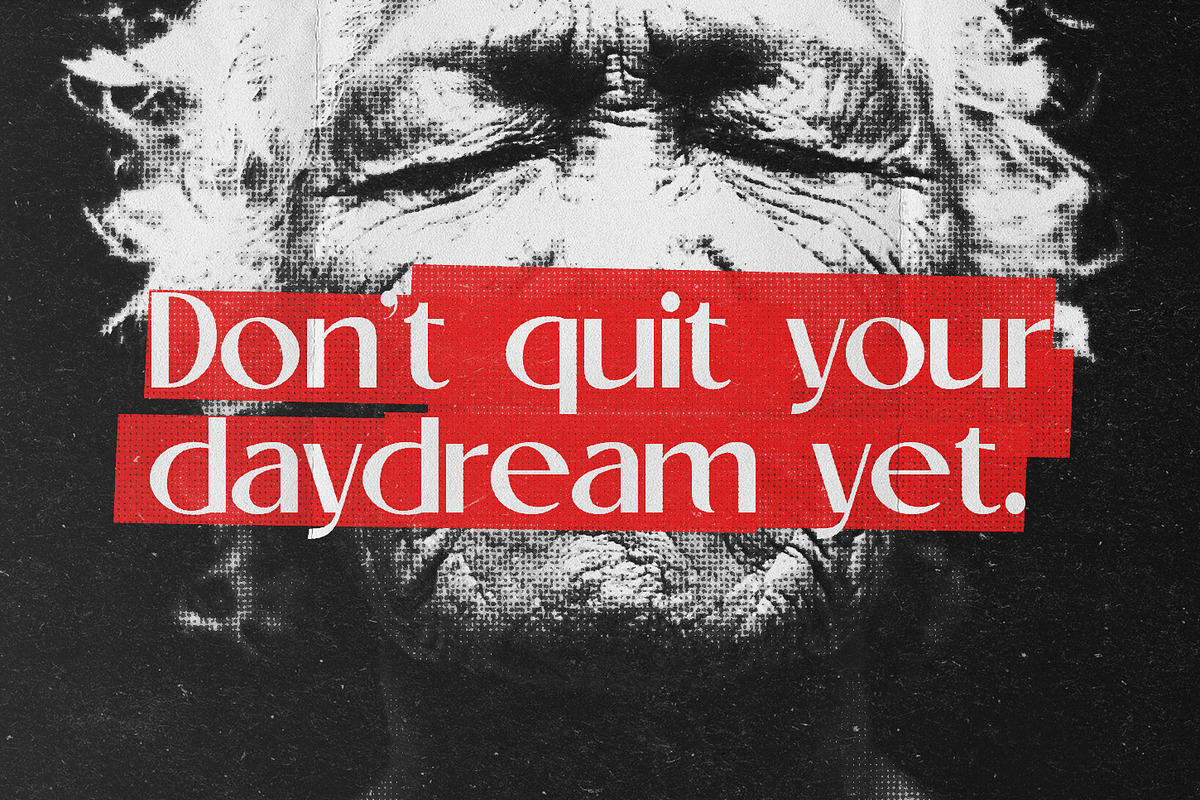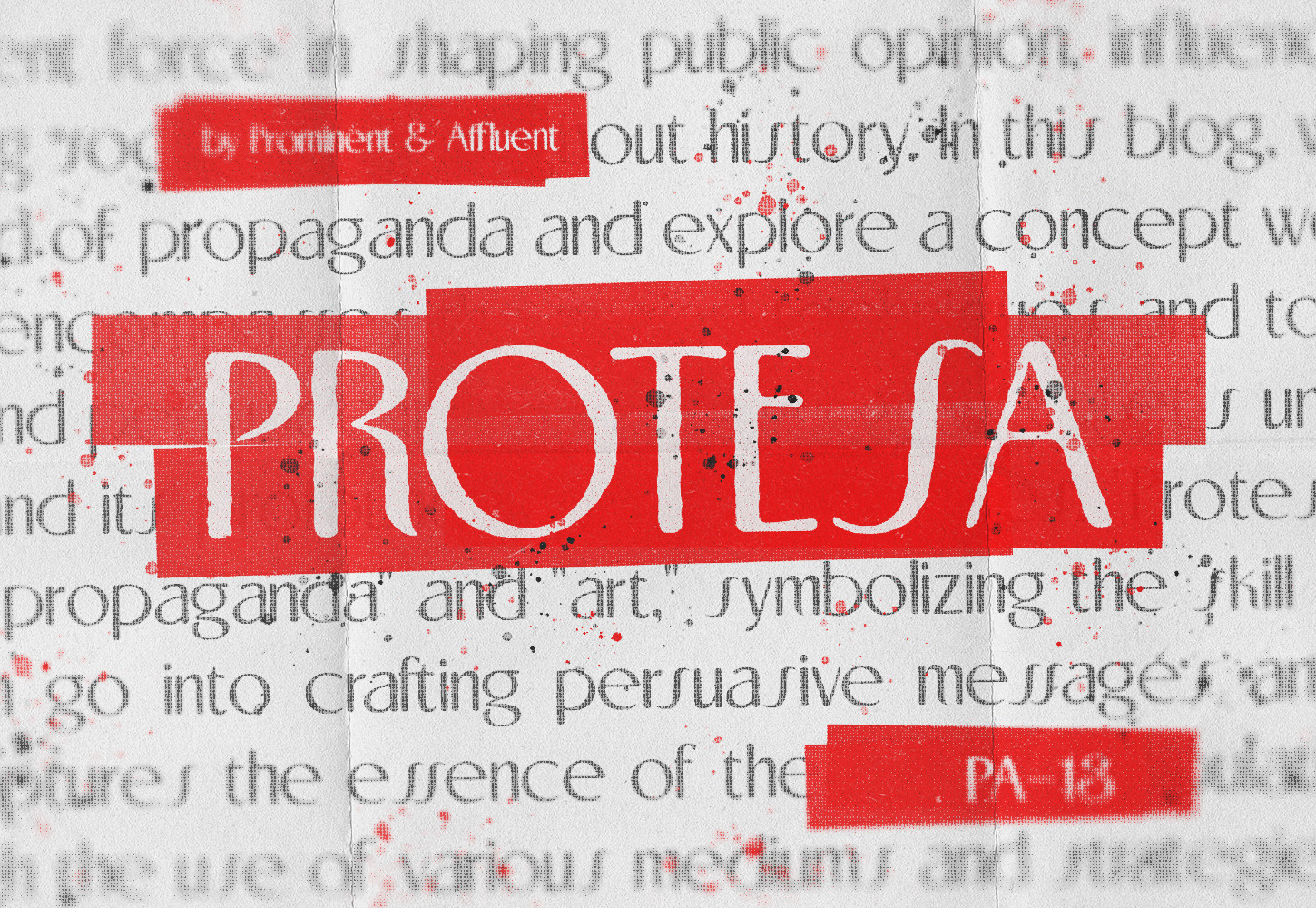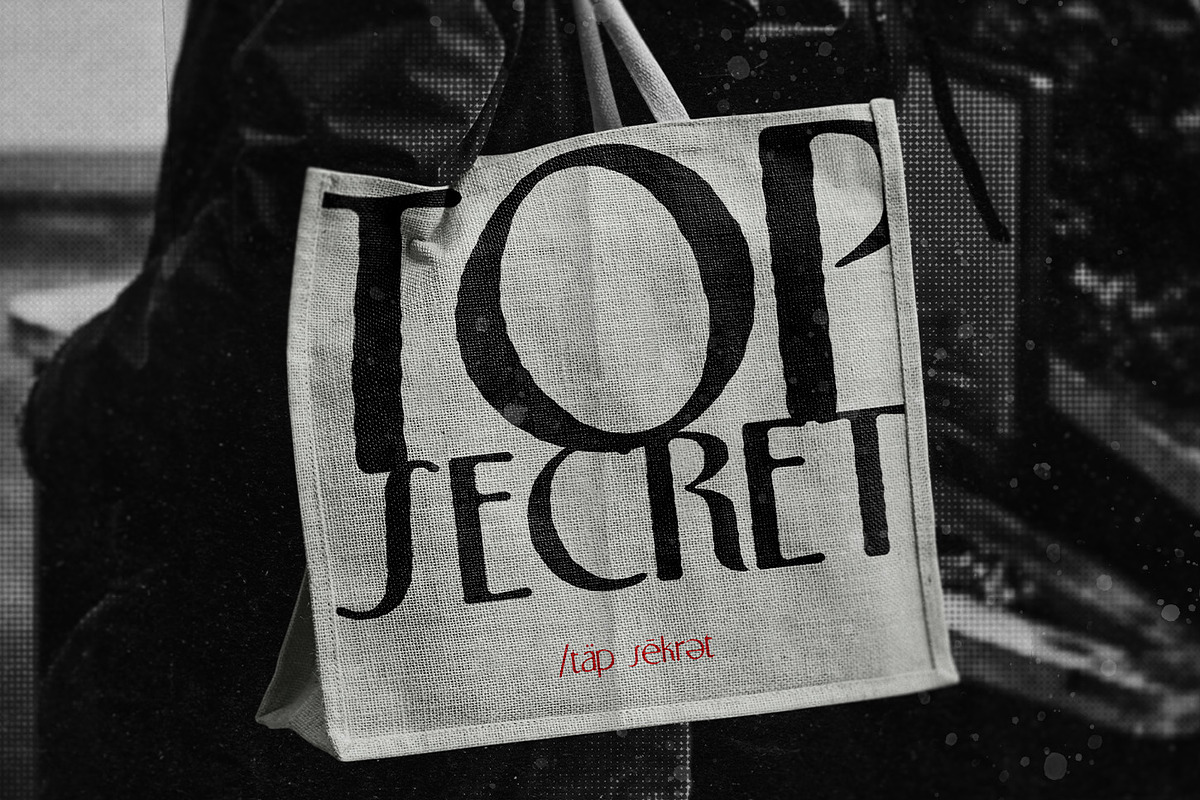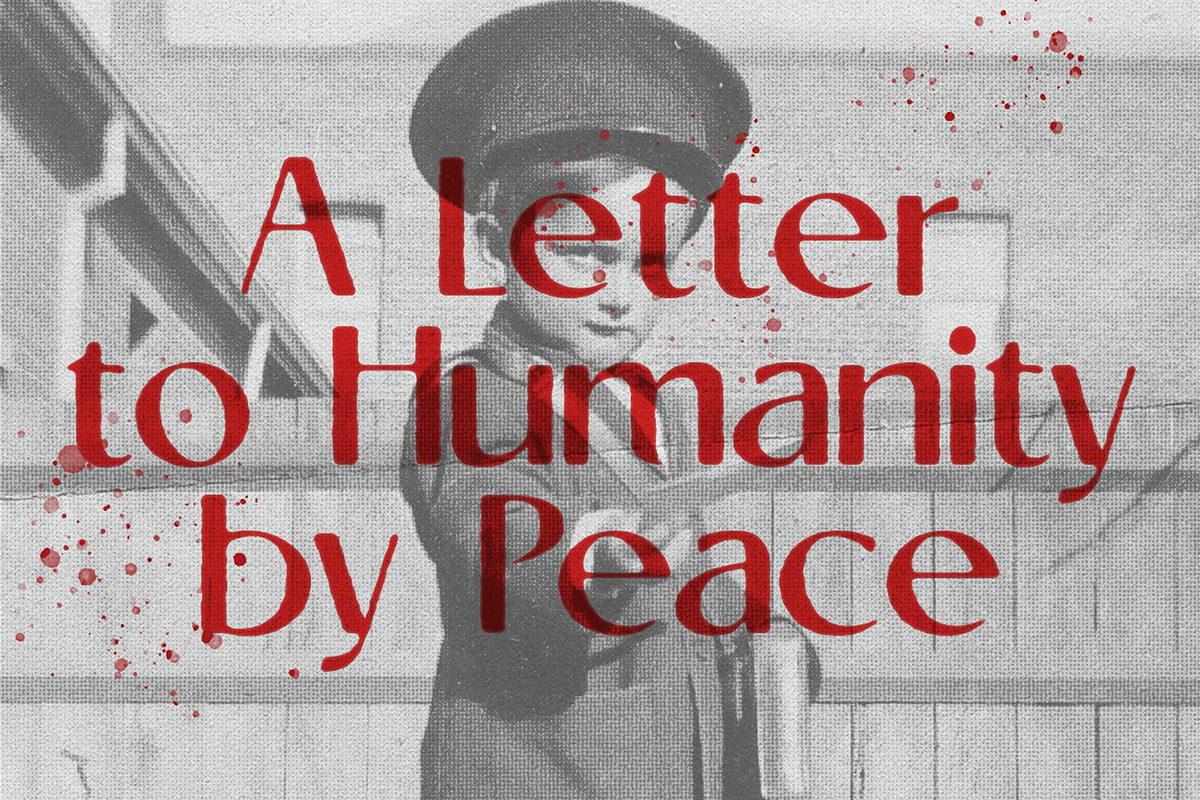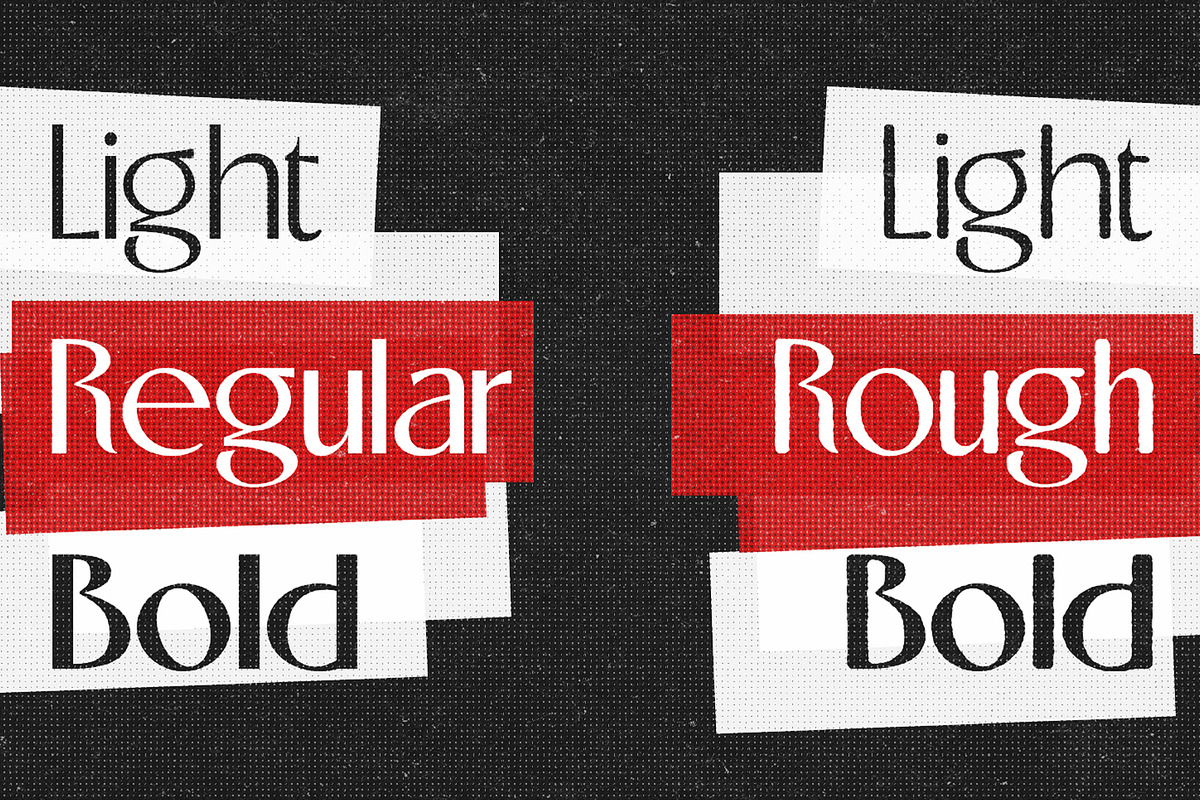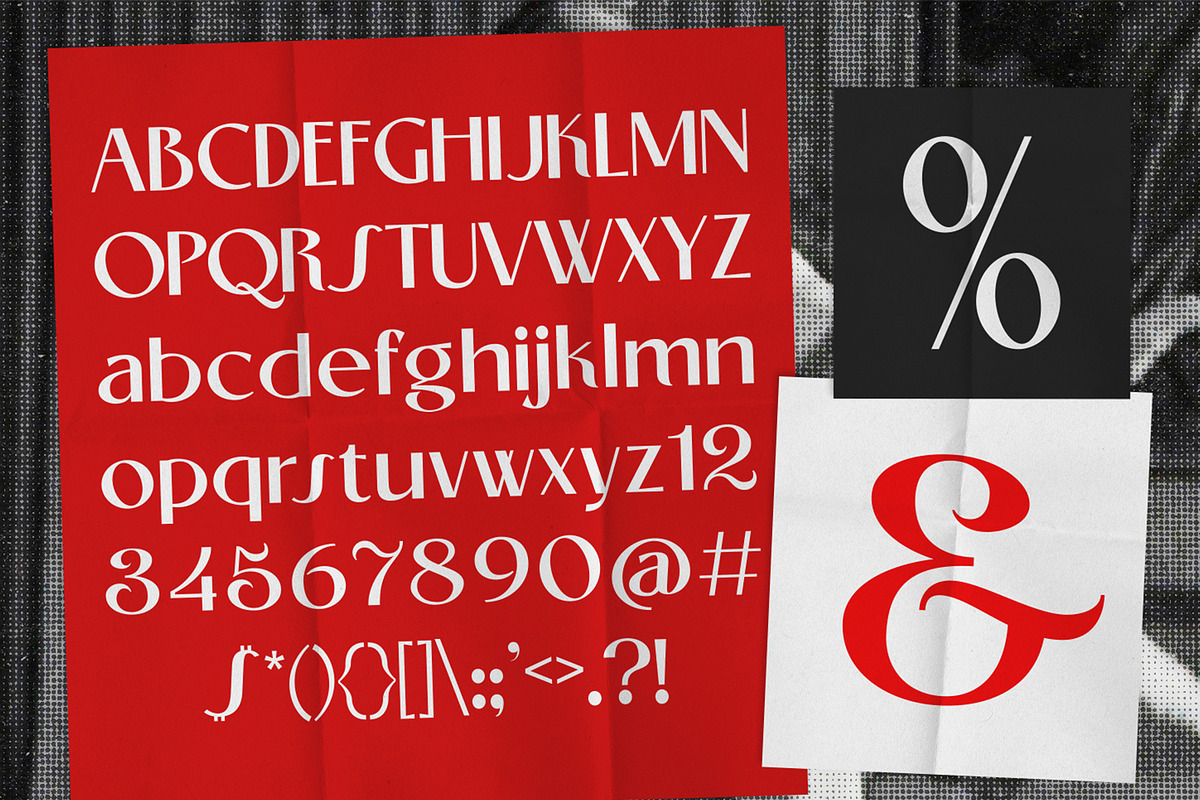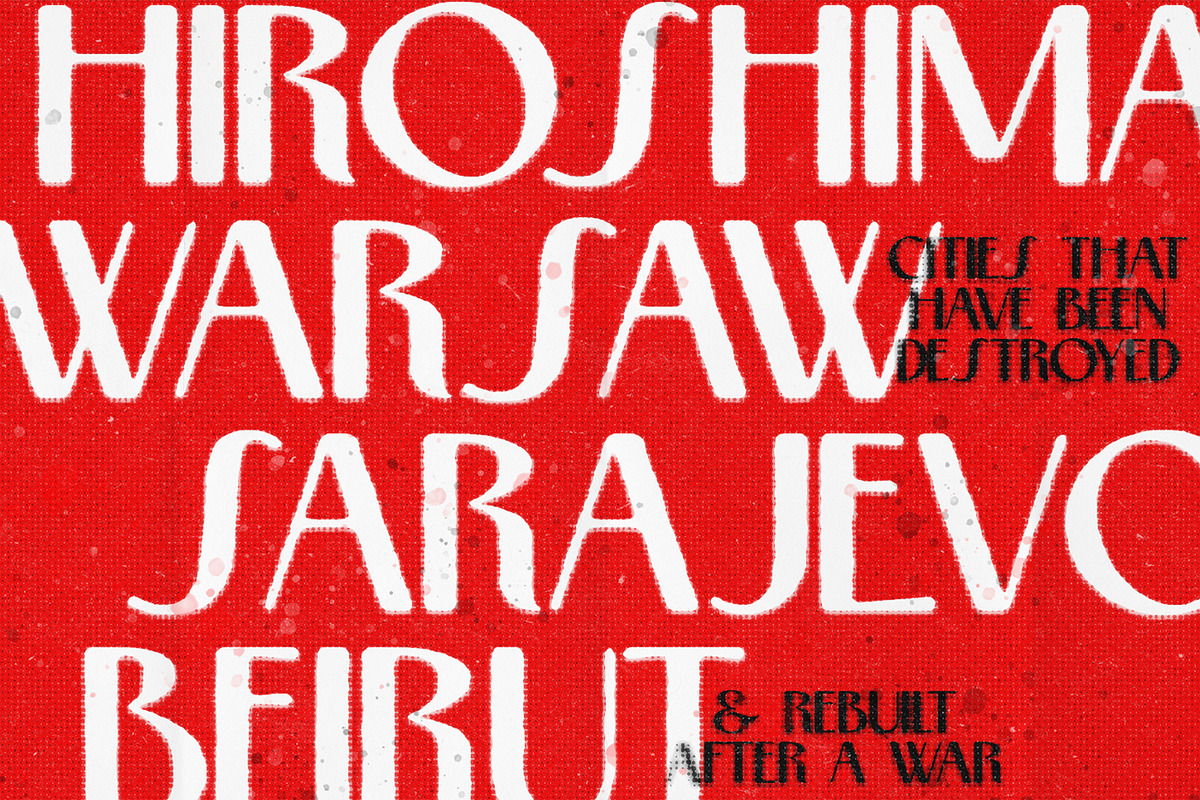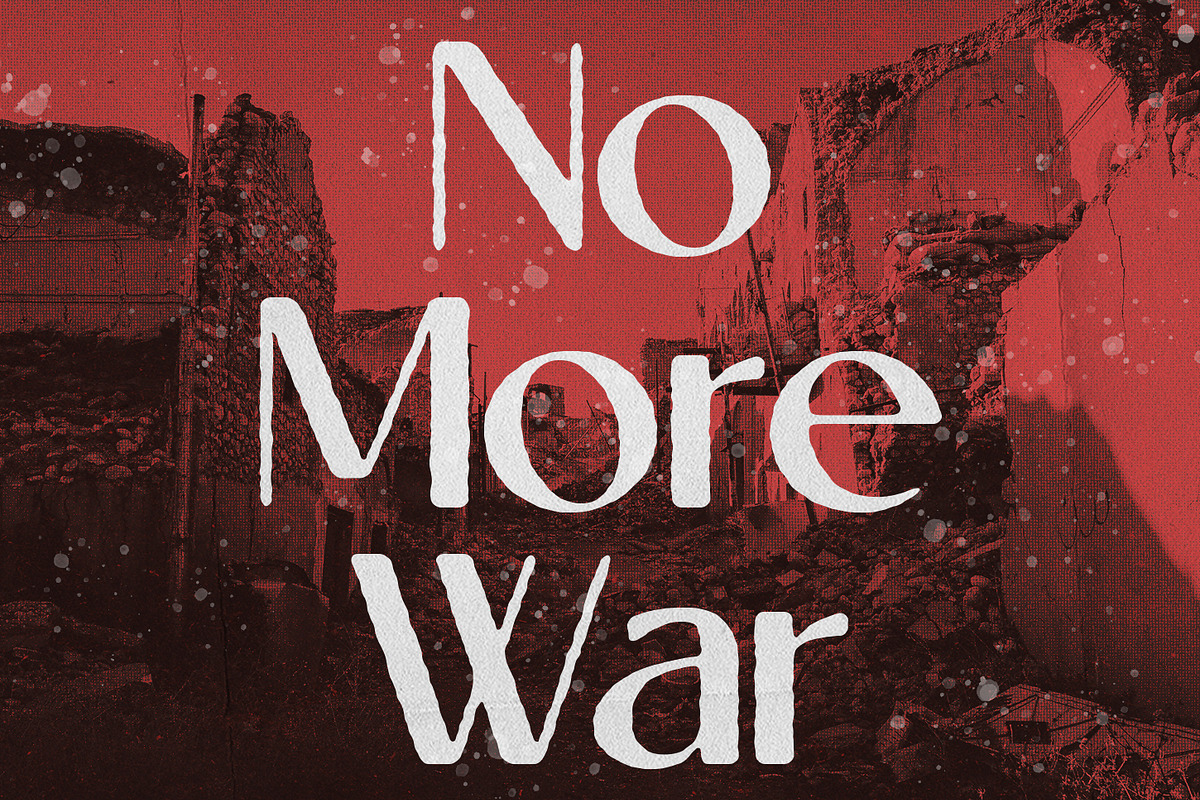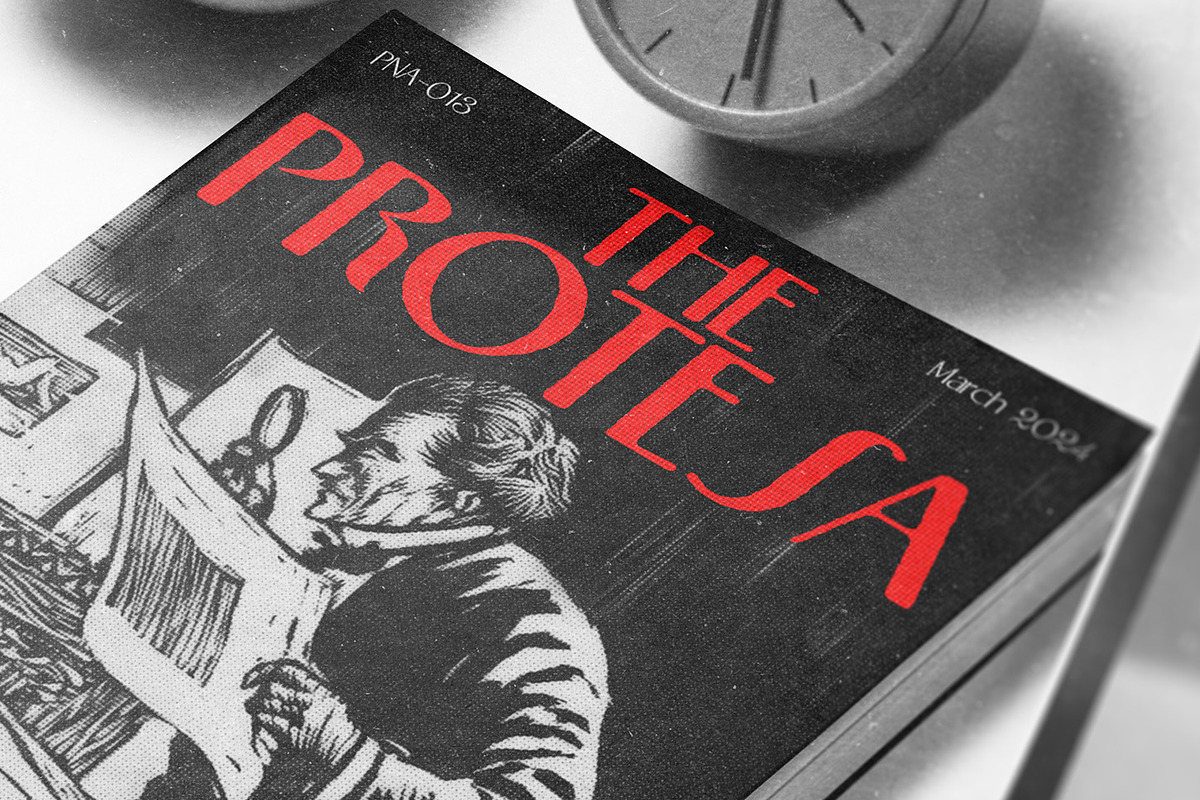
Protesa - Retro Display Font
Introducing Protesa, a digital font inspired by the iconic style of The New Yorker magazine, exuding the spirited essence of a movement. With its retro flair, Protesa brings a touch of nostalgia to modern designs, capturing the essence of a bygone era while infusing it with contemporary vitality. Available in two distinct styles—regular and rough—Protesa offers versatility and character, allowing designers to evoke a sense of classic charm or rugged authenticity in their projects. This typeface is perfect for formal layouts, newspapers, and magazine covers, and also ideal for vintage products, food & beverages, quotes, or simply as a stylish text overlay to any background image. Elevate your creations with Protesa and let your designs resonate with the energy of the past reimagined for today’s audience.